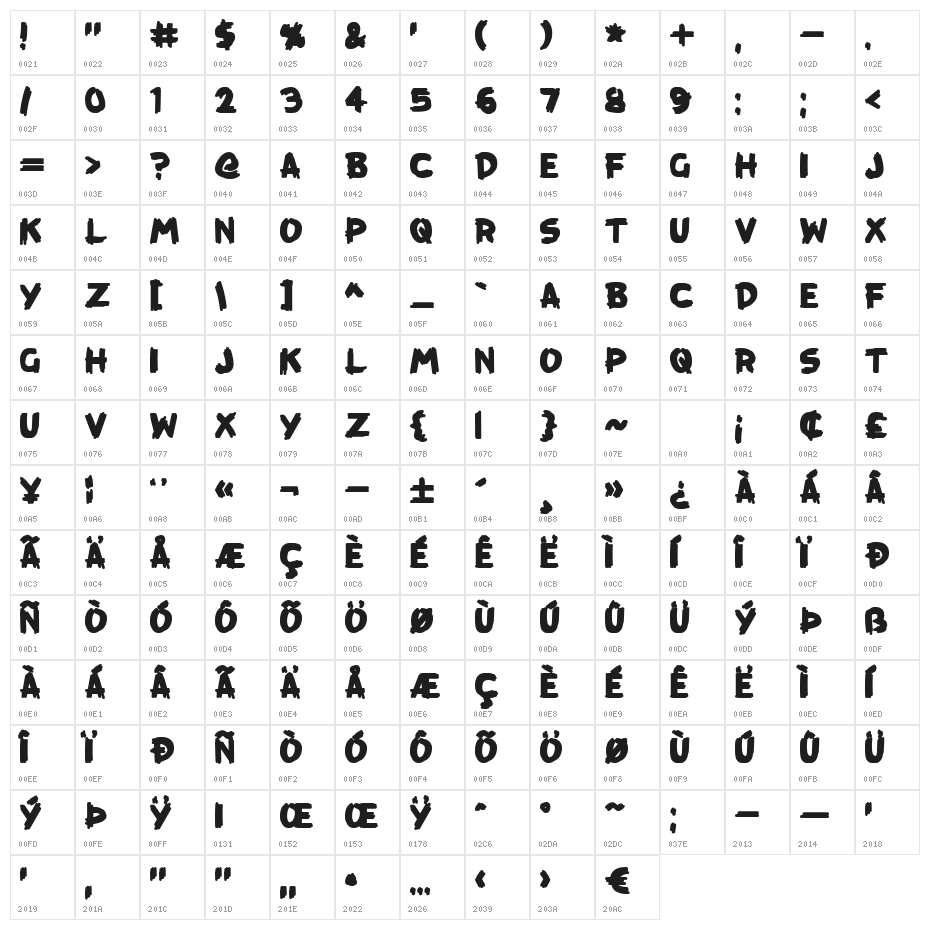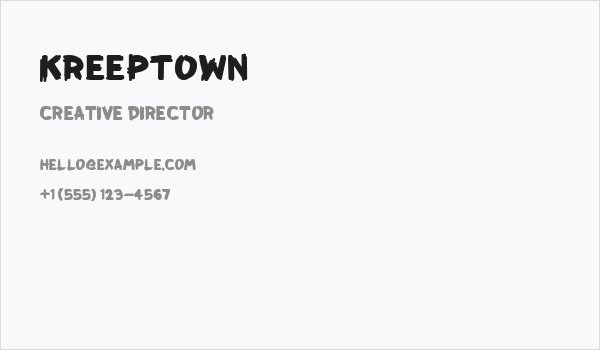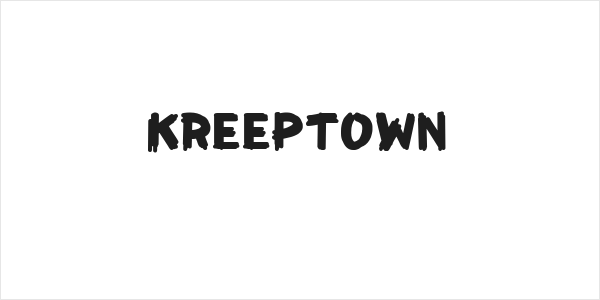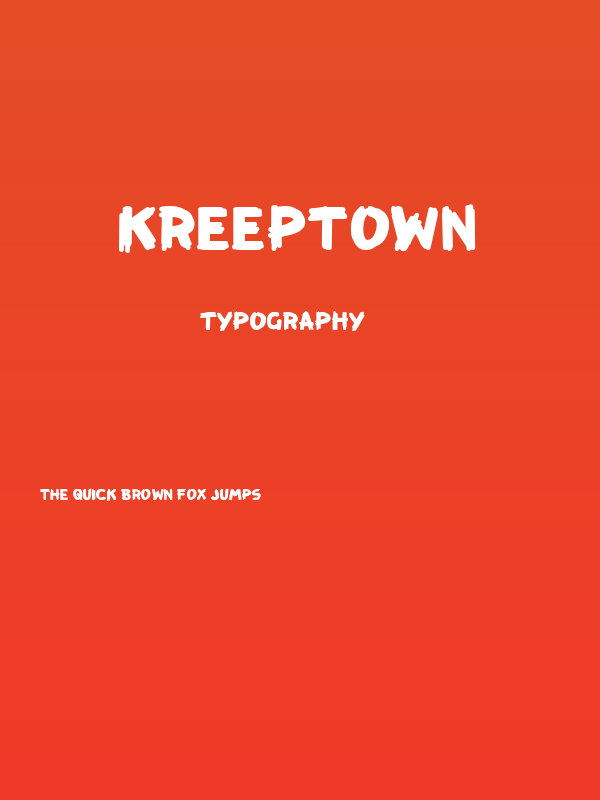
KreepTown Font
KreepTown Description
This font features a bold and playful style with a hand-drawn appearance. The letters are thick and slightly irregular, giving them a quirky and energetic feel. The strokes are uneven, adding to the font's informal and whimsical character. The uppercase and lowercase letters maintain a consistent style, with rounded edges and a slightly exaggerated form. Numbers and special characters follow the same playful design, making the font suitable for creative and fun projects. The overall look is dynamic and eye-catching, perfect for capturing attention.
| Overall Style | Playful, Whimsical, Energetic |
| Proposed Projects | Ideal for children's books, comic strips, party invitations, and playful branding. |